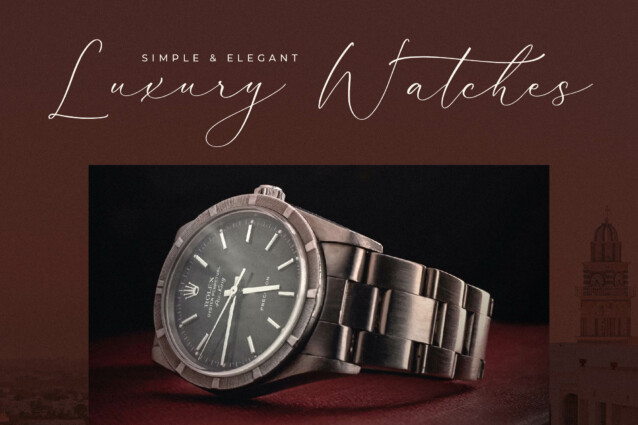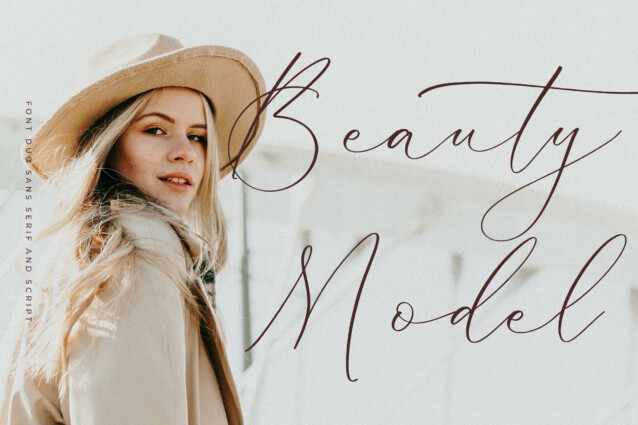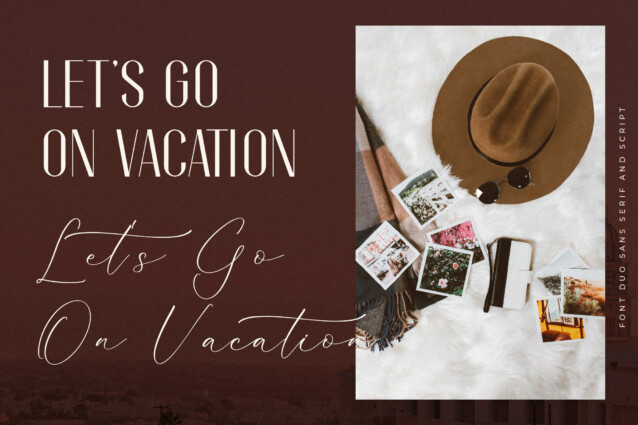
Sutherla Romance Font is a serif and script typeface that has own unique style & modern look. This typeface is perfect for an elegant & luxury logo, book or movie title design, fashion brand, magazine, clothes, lettering, quotes, and so much more.